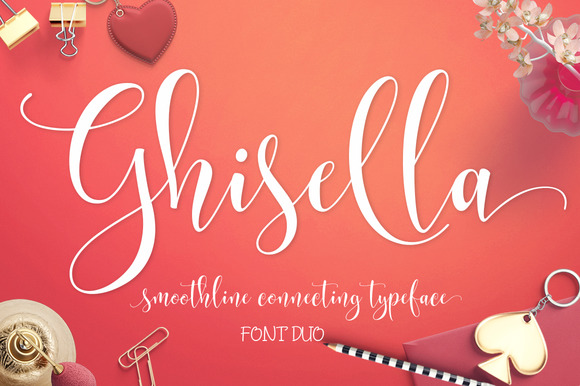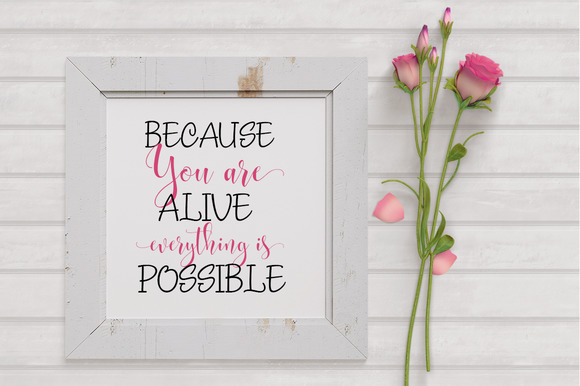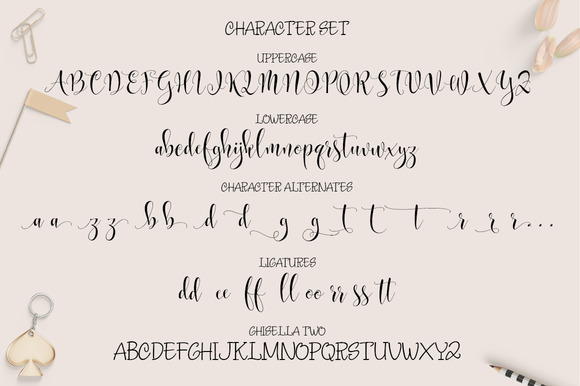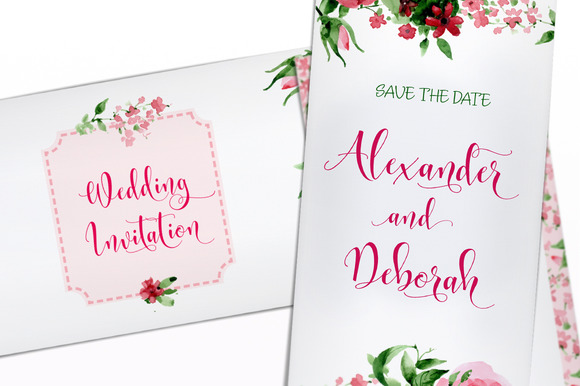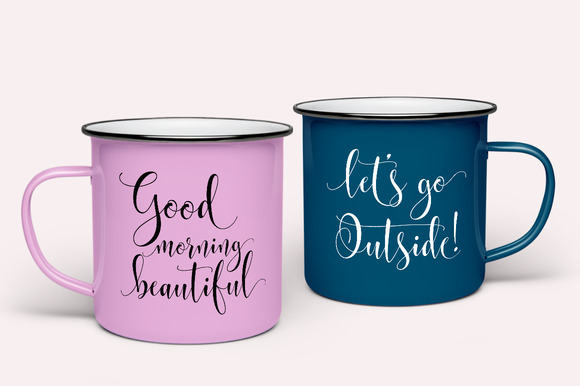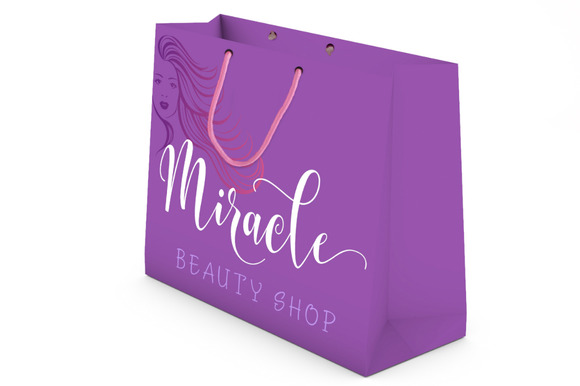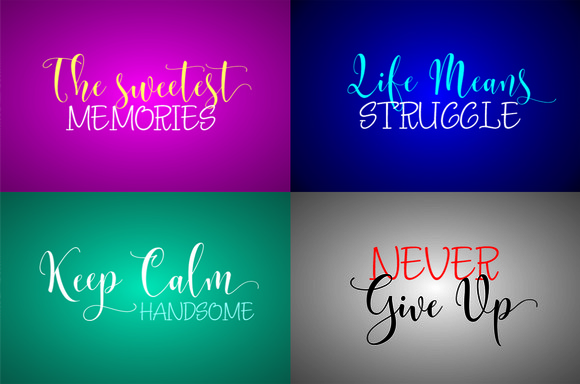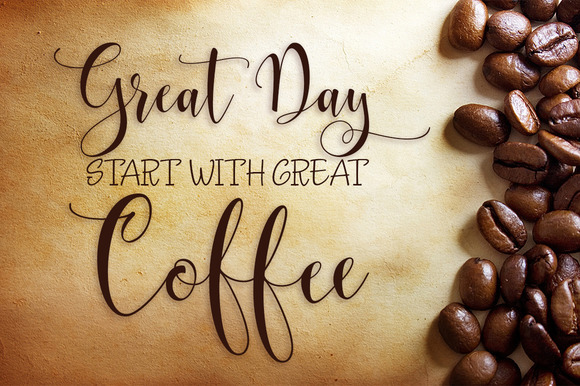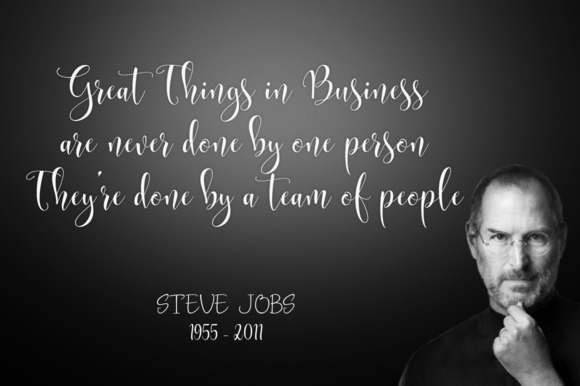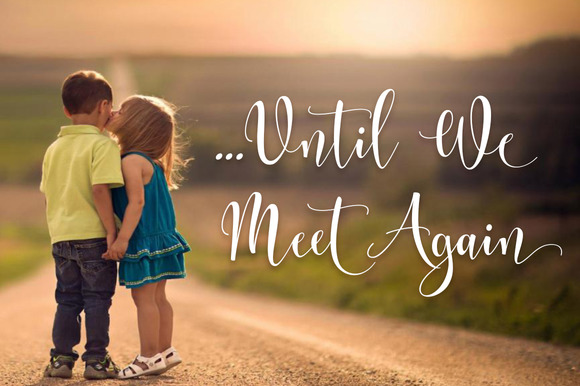
Ghisella Font
About Ghisella Font
Ghisella is a interconnected font with beautiful welded letters. The font contains smooth and elegant letters and is great for creating cards such as wedding invitations and birthday cards, but can also be used to create beautiful signs and decorate various items.